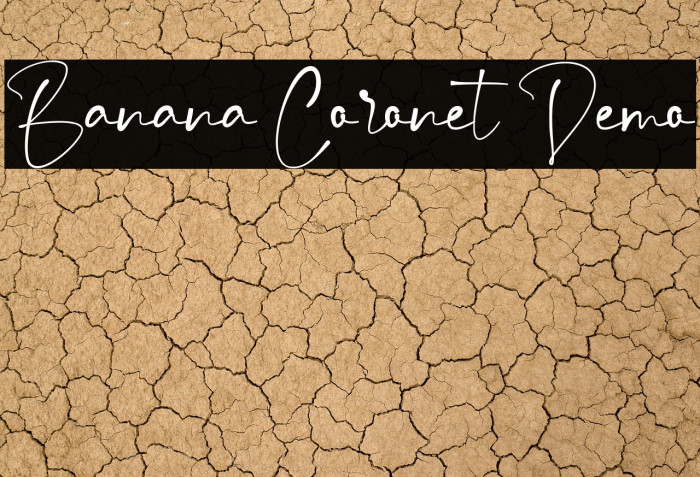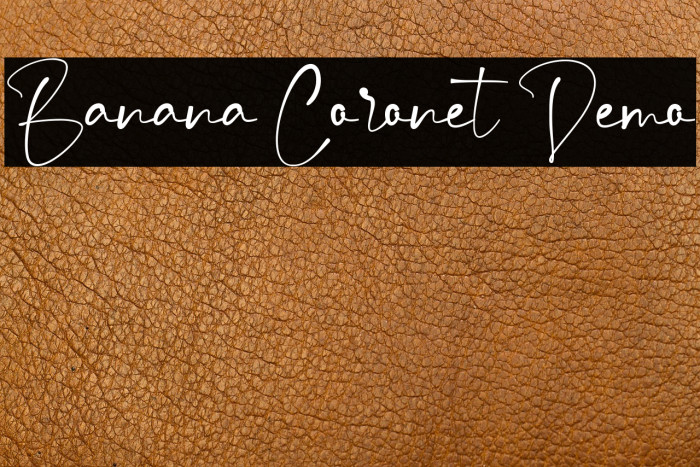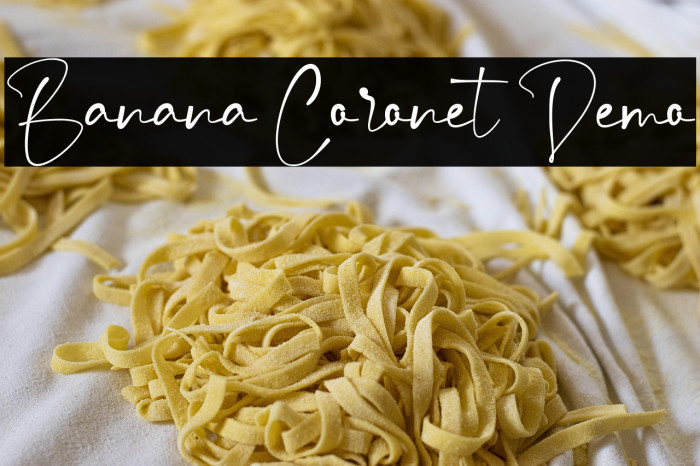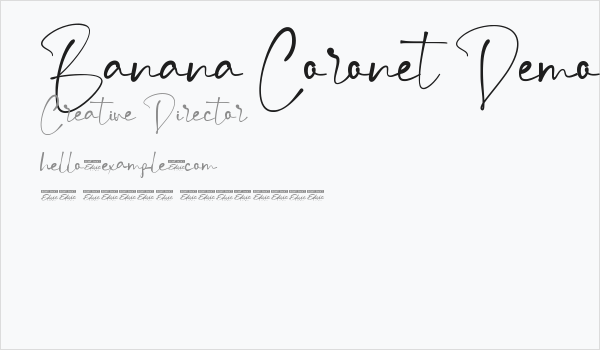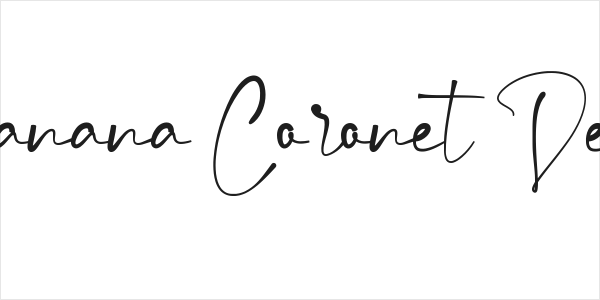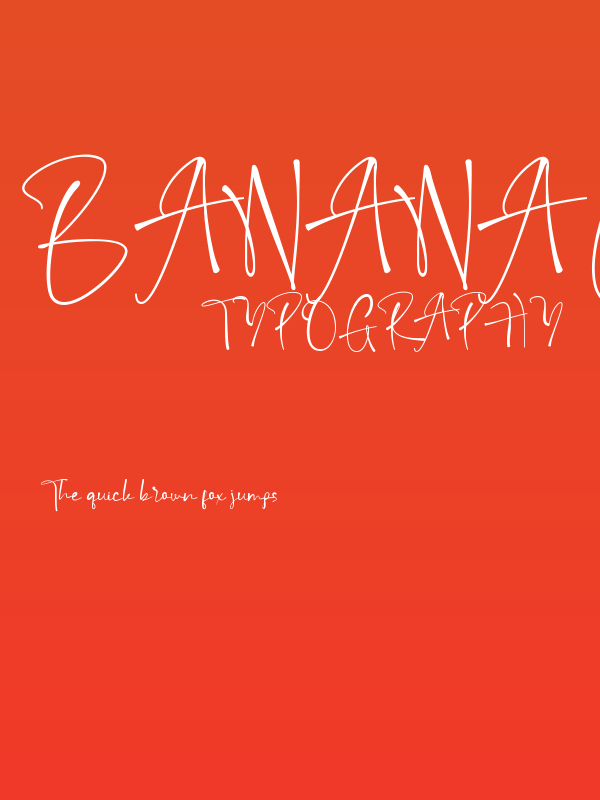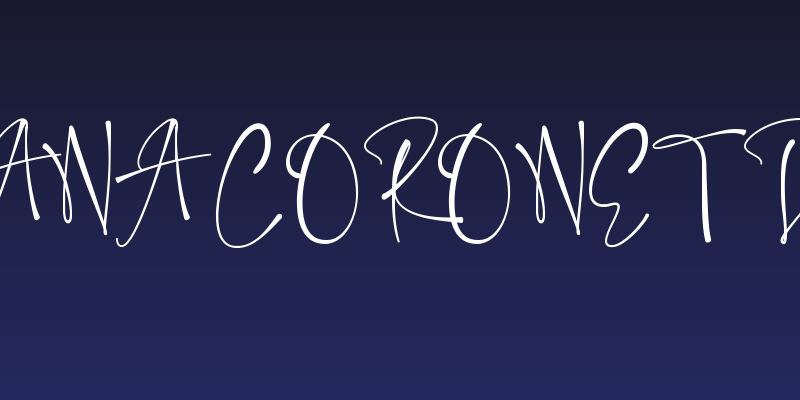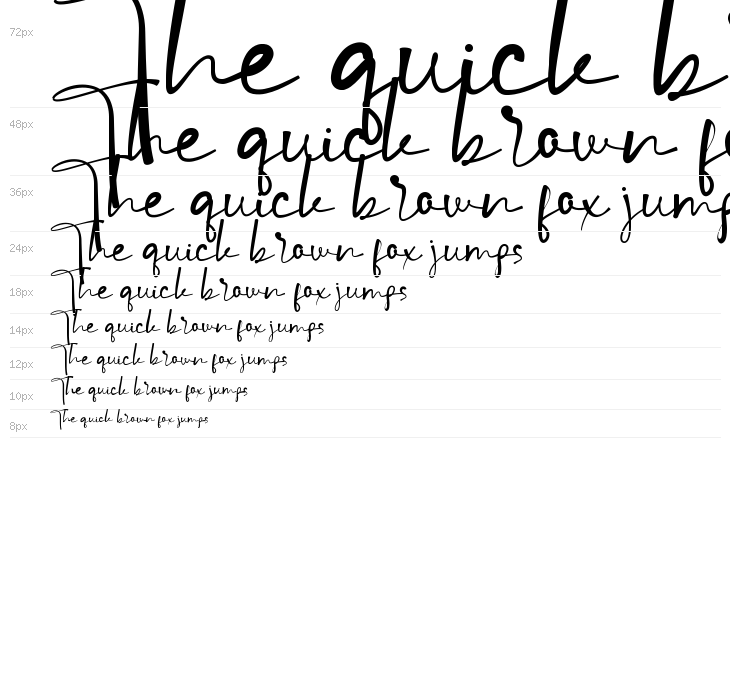
Banana Coronet Demo Font
Banana Coronet Demo Description
This font features a playful and dynamic handwritten style, characterized by its fluid and expressive strokes. The uppercase letters exhibit a whimsical flair with varying stroke widths, while the lowercase letters maintain a consistent flow, enhancing readability despite their artistic nature. The font includes numerals and a set of special characters, all maintaining the same lively and informal aesthetic. Its unique style is perfect for projects that require a personal touch or a creative, informal vibe.
| Proposed Projects | Ideal for greeting cards, invitations, personal branding, and creative projects that require a unique, informal touch. |